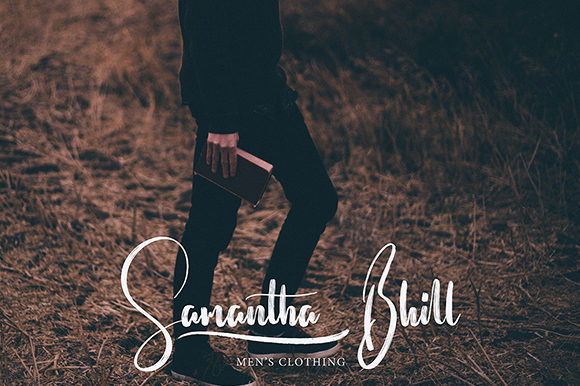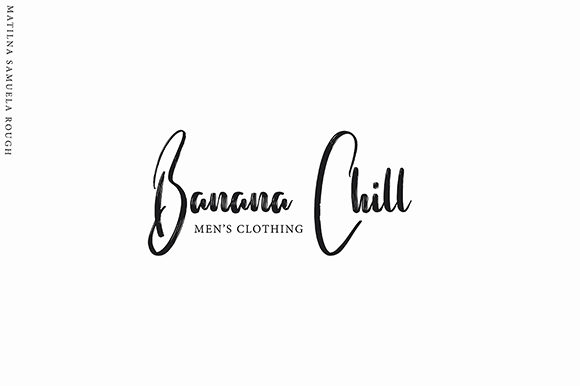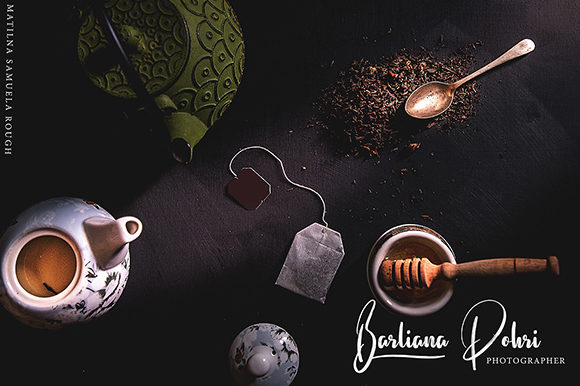
Introduction to Matilna Samuela Font
Matilna Samuela is a modern and lovely handwritten font with incredible elements.
Get inspired by its authentic touch .
Key Features of Matilna Samuela Font
Why Choose Matilna Samuela Font?
Matilna Samuela Font offers exceptional quality and versatility, making it a valuable addition to your design toolkit. Whether you’re creating for personal projects or commercial use, Matilna Samuela Font delivers professional results.